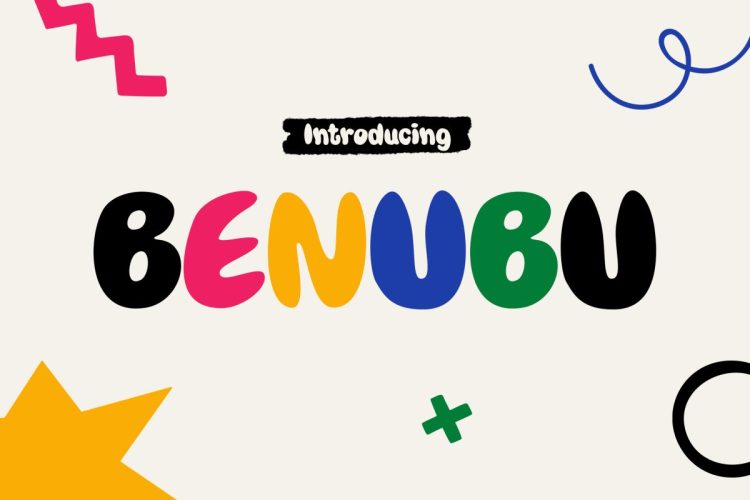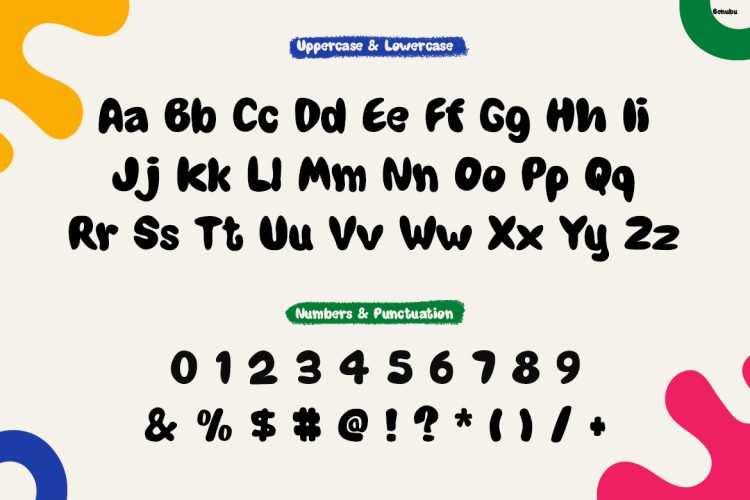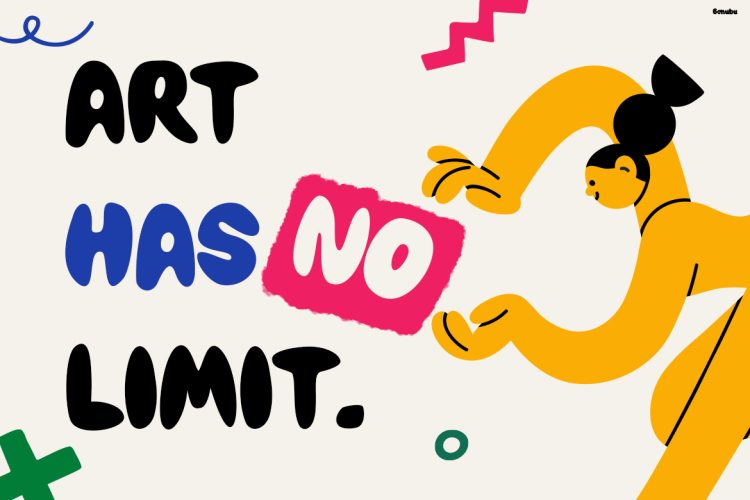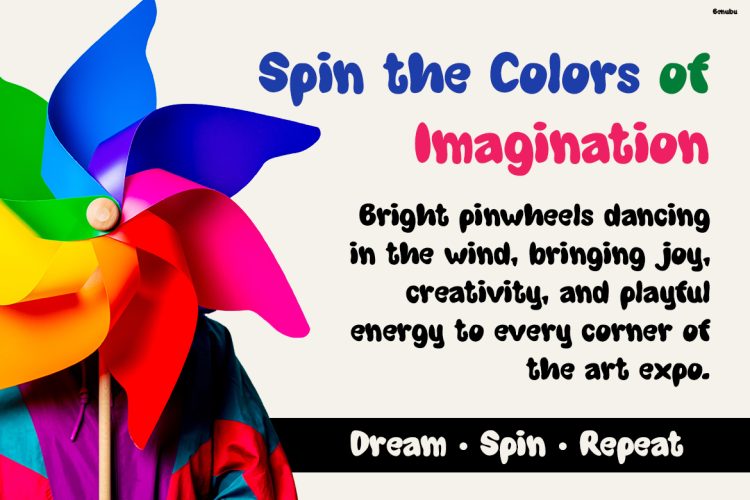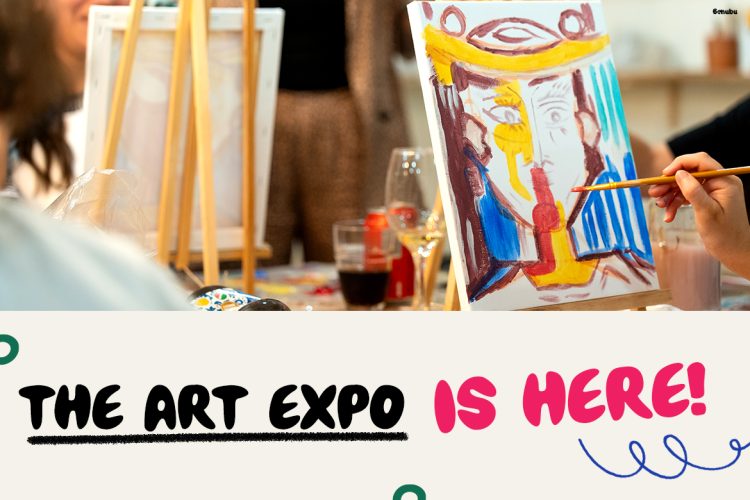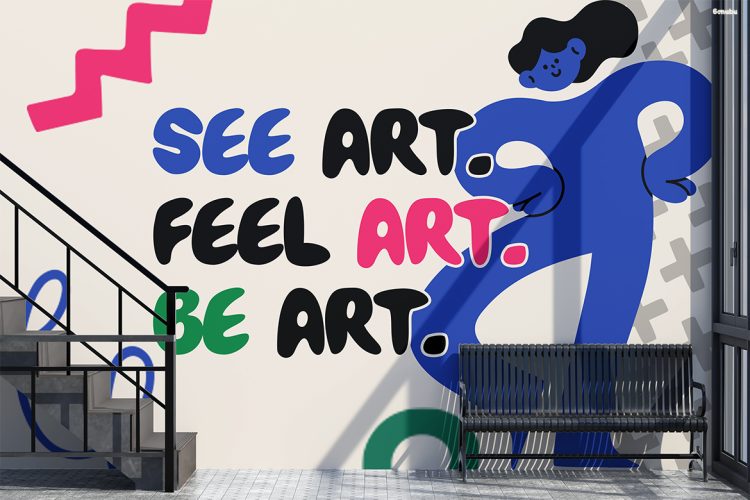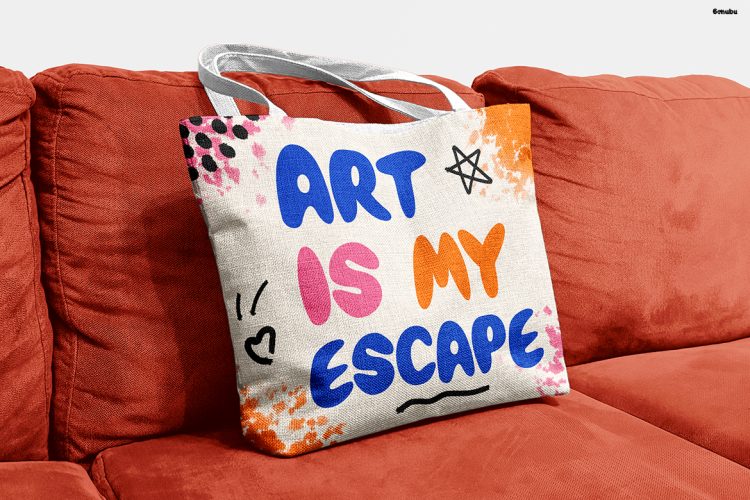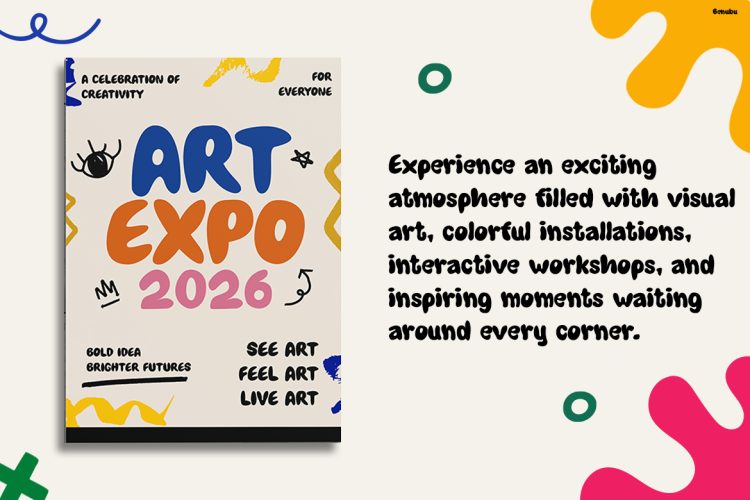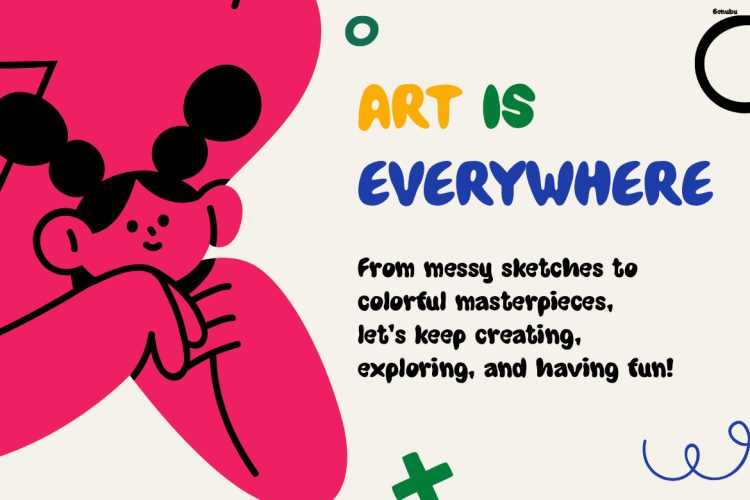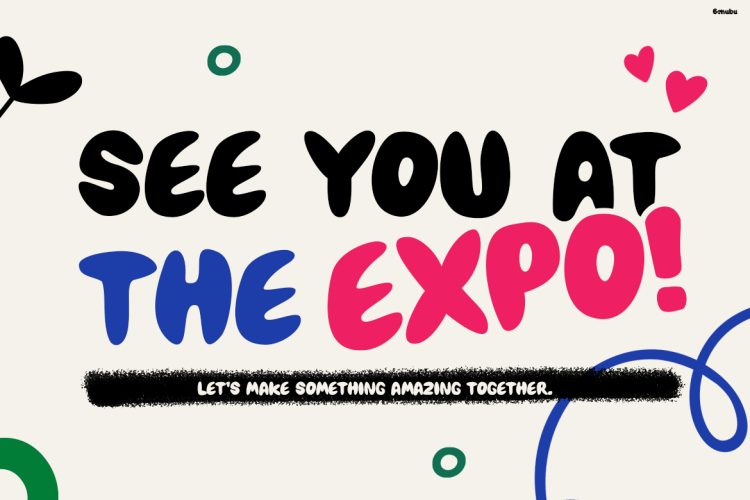
Instagram Font Benubu โ Bold Playful Font with Creative Pop-Art Energy
Instagram Font Benubu is a fun and energetic display font designed to make every design feel louder, brighter, and more expressive. With its chunky hand-drawn letterforms, playful curves, and colorful pop-art aesthetic, this font instantly creates a cheerful and eye-catching visual atmosphere. Moreover, the bold typography gives every headline a strong and artistic personality that instantly grabs attention. In addition, the quirky character shapes make your layouts feel more creative, youthful, and visually dynamic. Because of its playful modern style, Benubu works perfectly for art campaigns, social media graphics, kids events, and creative branding projects. Furthermore, the thick rounded structure keeps your text highly readable across both digital and print media. At the same time, the fun handmade vibe helps every design feel more lively, friendly, and impossible to ignore.
Why Instagram Font Benubu Looks So Fun
Instagram Font Benubu combines playful graffiti energy with bold modern typography. As a result, every word feels artistic, expressive, and full of character. Not only does the font create a strong visual impact, but it also boosts the creativity of your layouts with its colorful and spontaneous style. Additionally, the chunky handwritten details make your content feel more trendy and engaging. Meanwhile, the energetic visual rhythm keeps your branding looking fresh and exciting. Whether you are creating art expo posters, creative merchandise, or social media promotions, this font helps every project feel more vibrant and memorable. Likewise, the cheerful artistic vibe instantly connects with younger and creative audiences.
- Art expo promotions
- Creative social media graphics
- Kids event posters
- Merchandise and apparel
- Creative branding
- Fun packaging designs
- Workshop campaigns
- Youth-themed projects
- Pop-art visuals
- Trendy advertising content
Make Every Design Feel More Creative